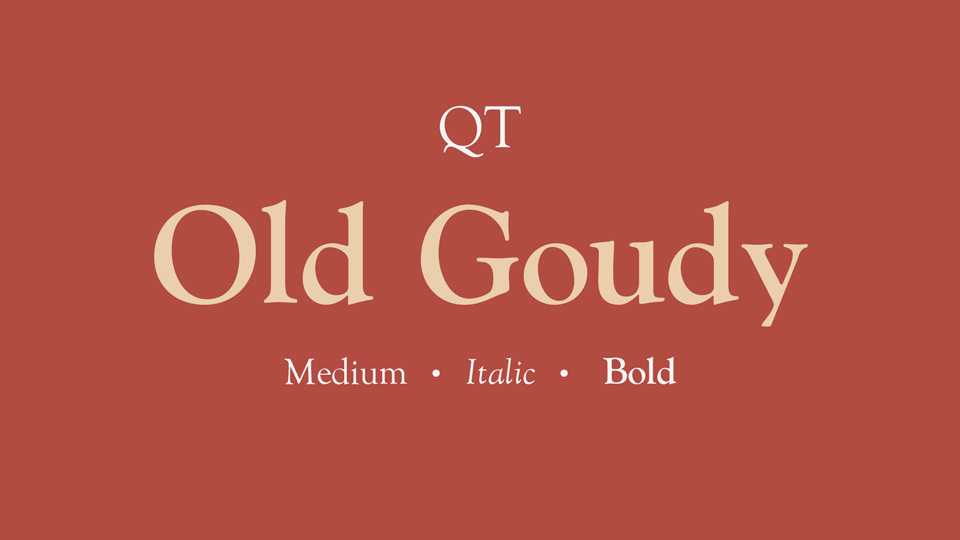
Download Old Goudy typeface, an old style serif font family in two weight and Italic, based on the Goudy Old Style, originally designed by Frederic Goudy for ATF in 1915.